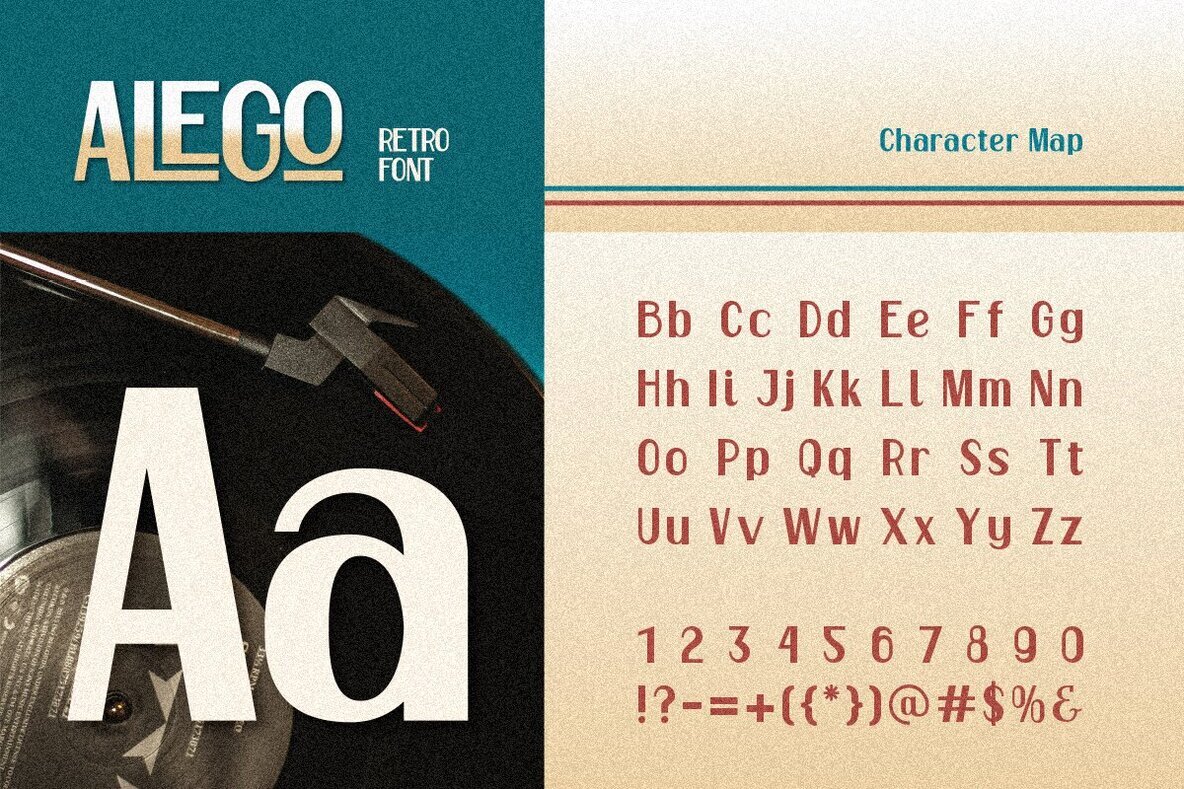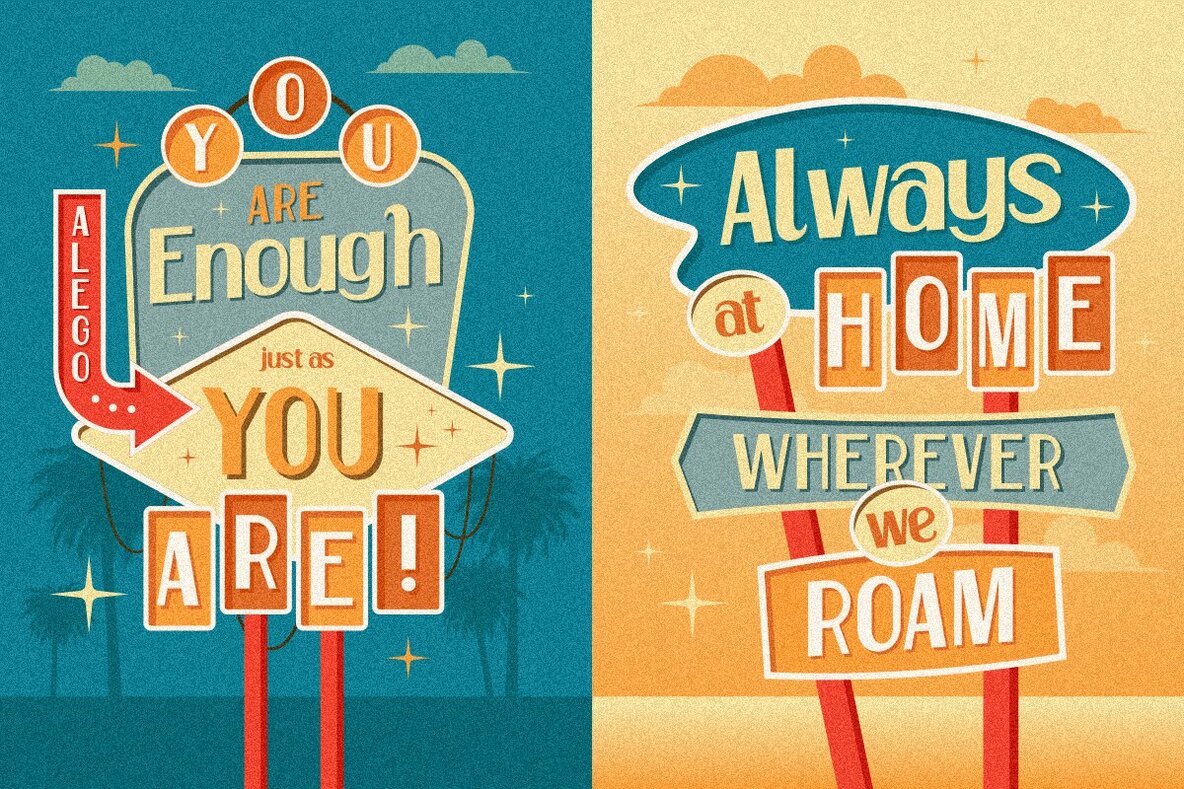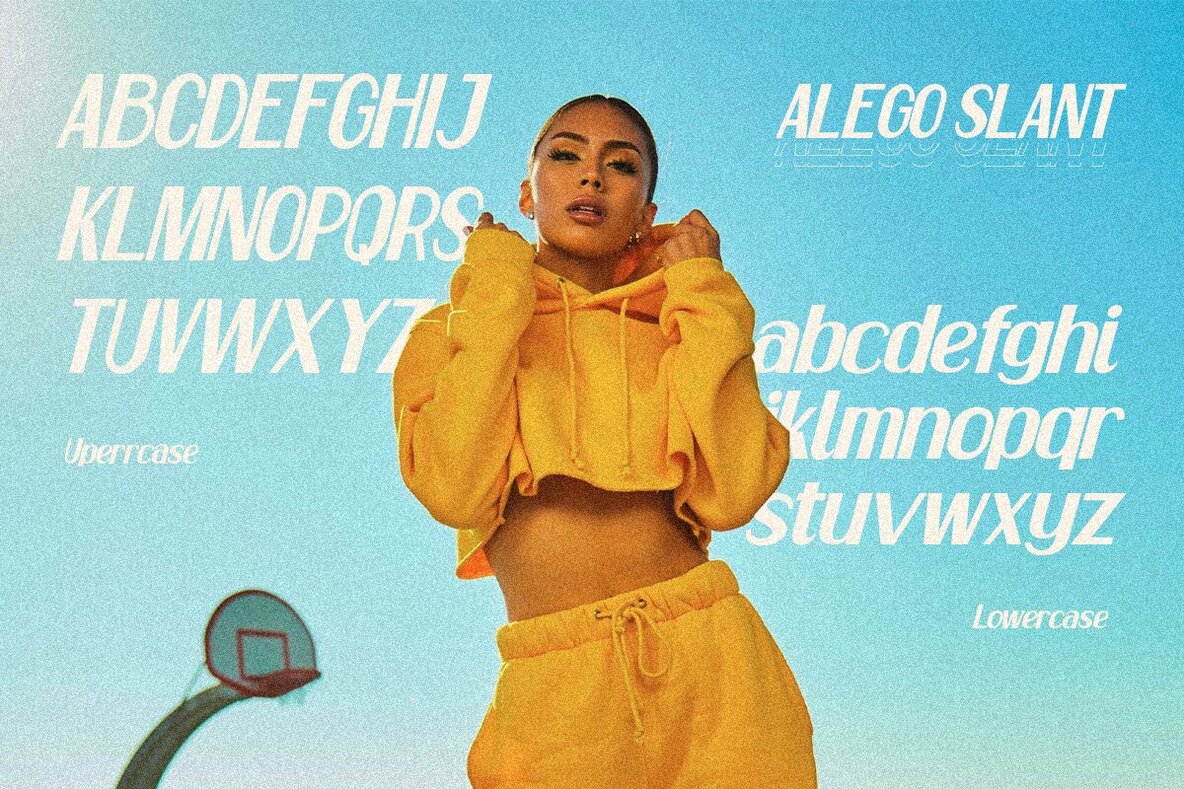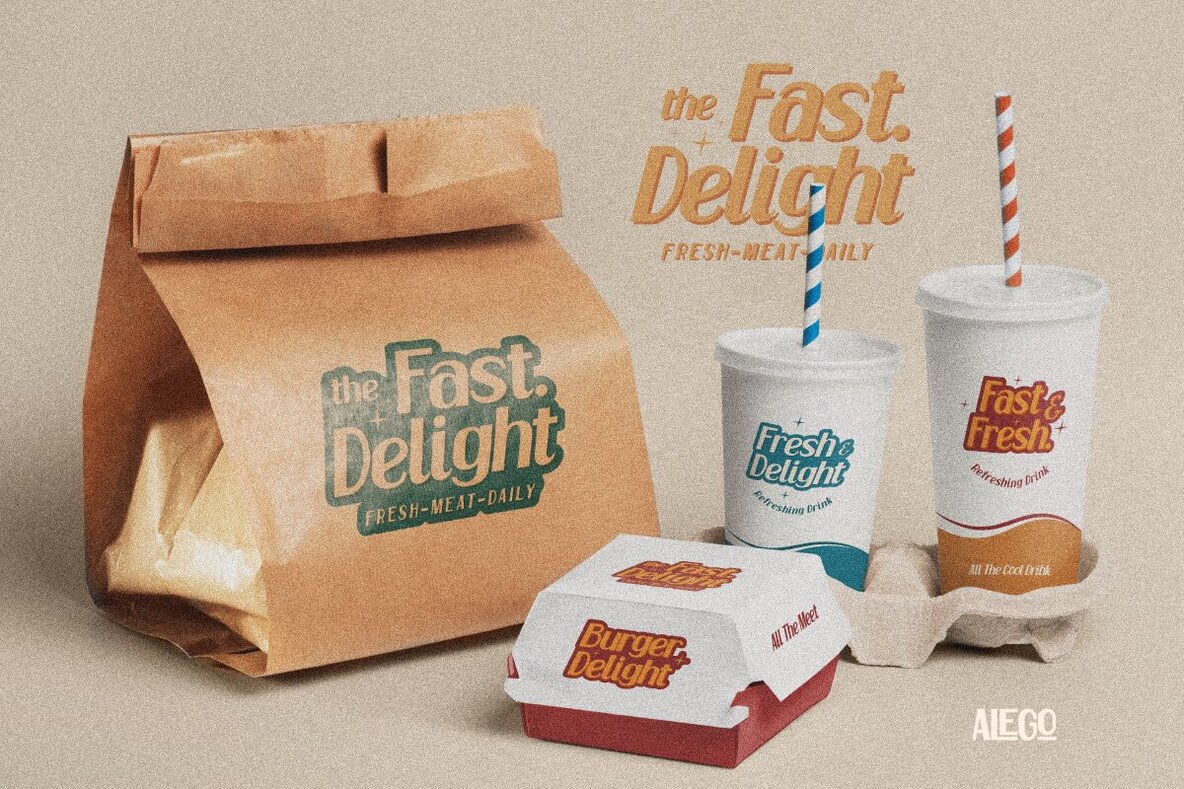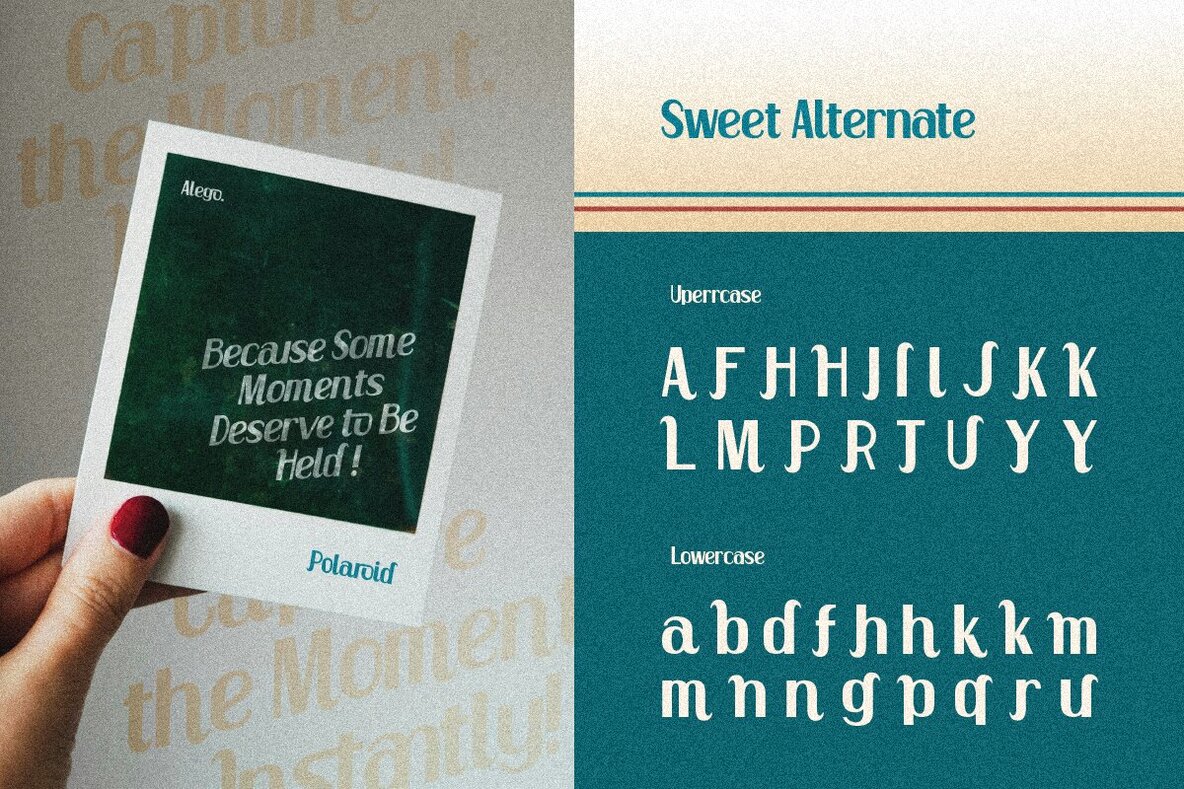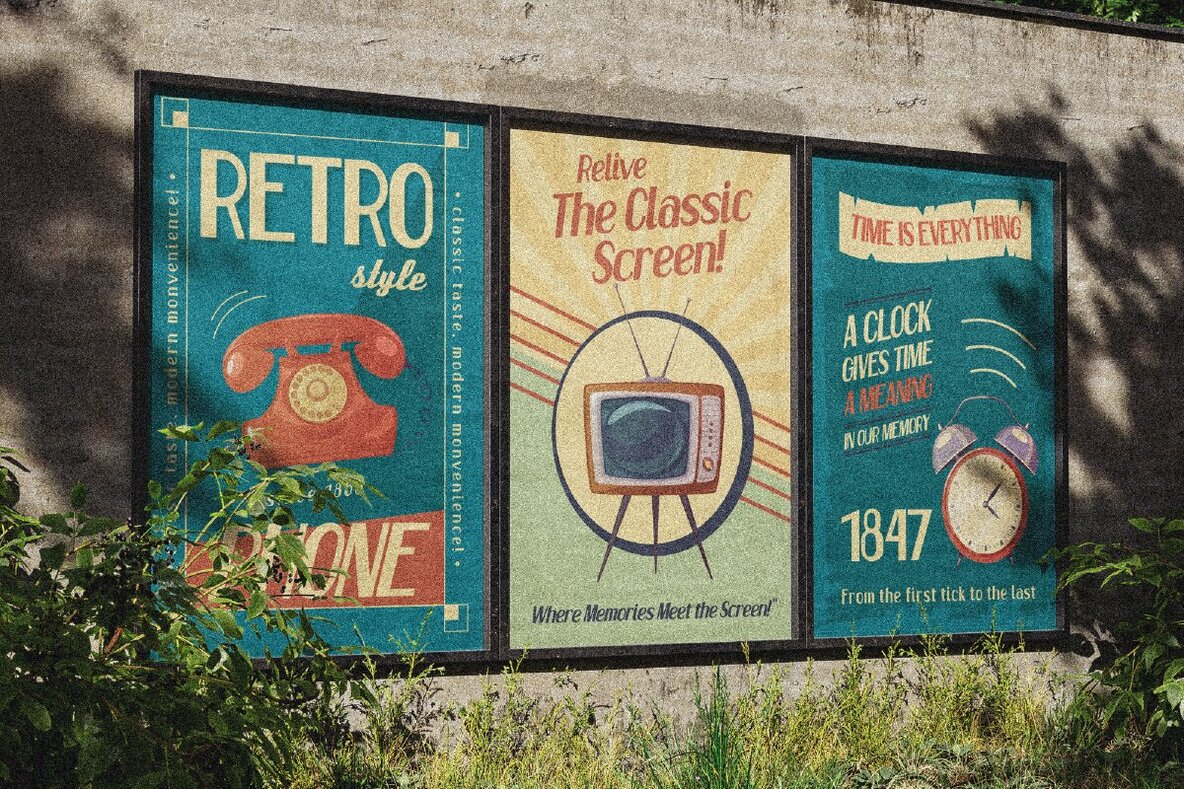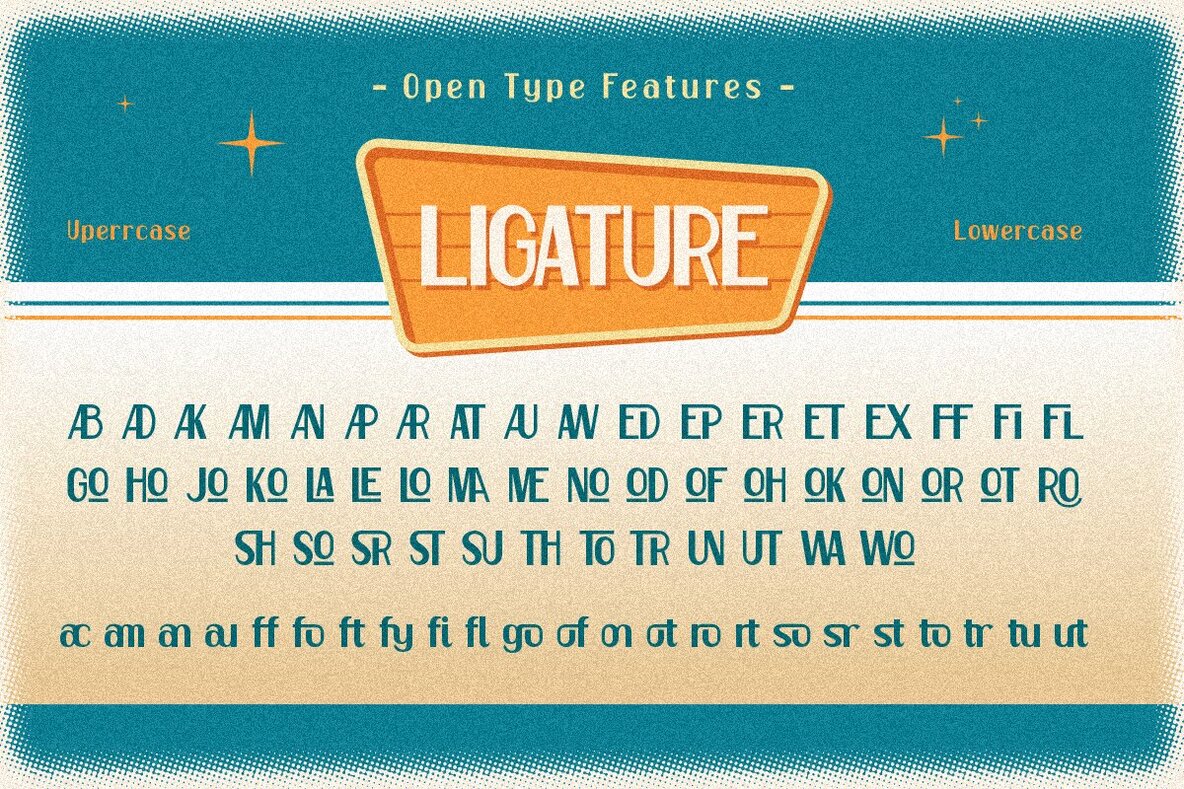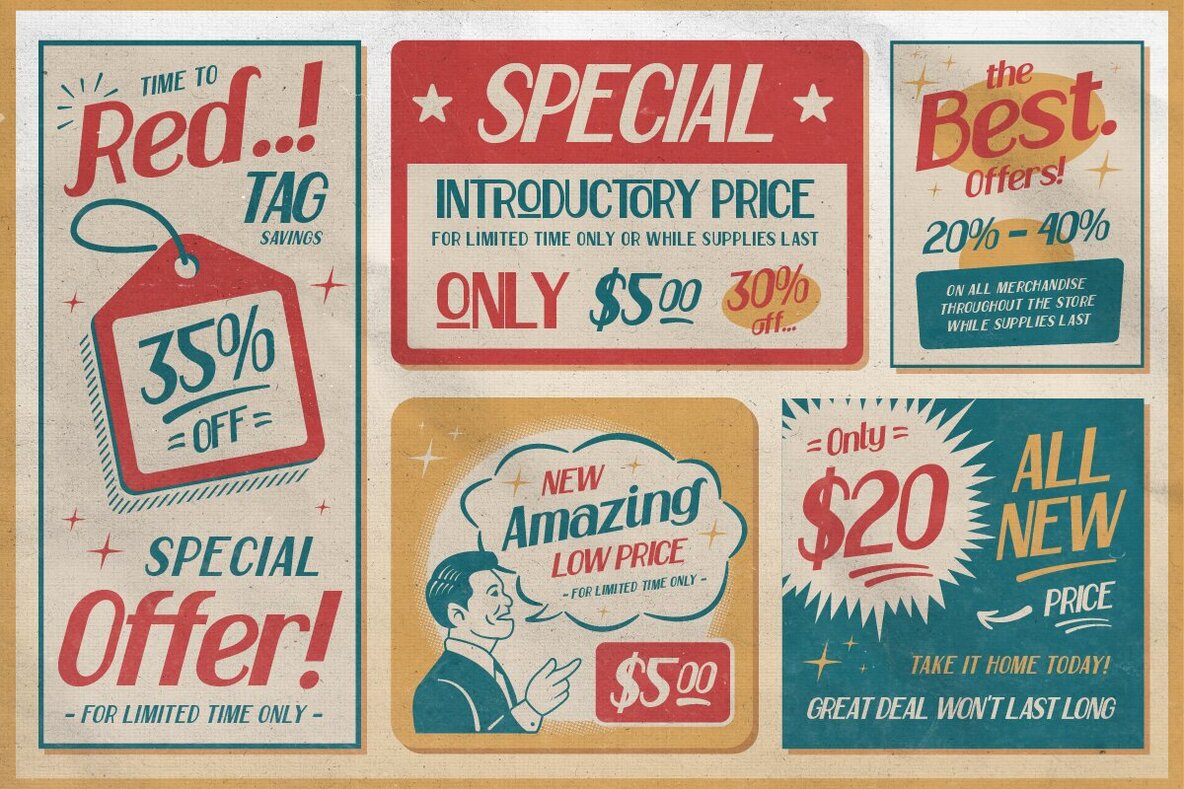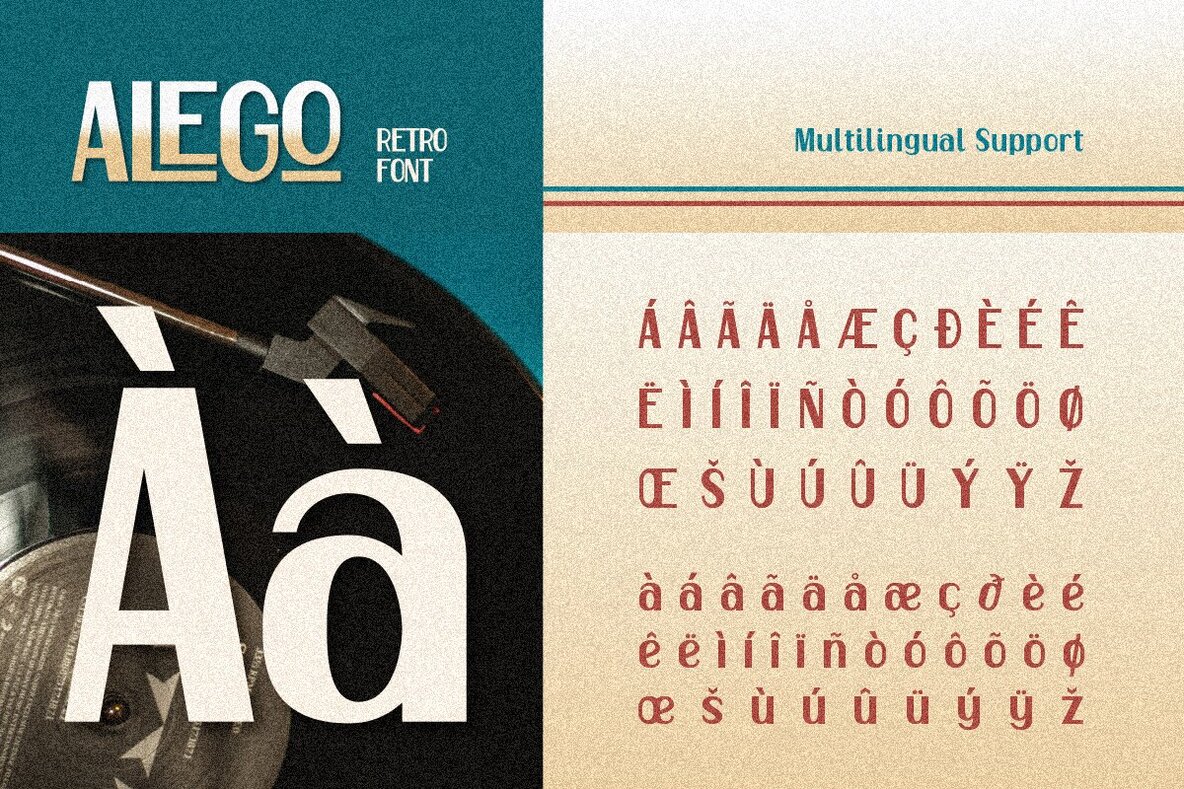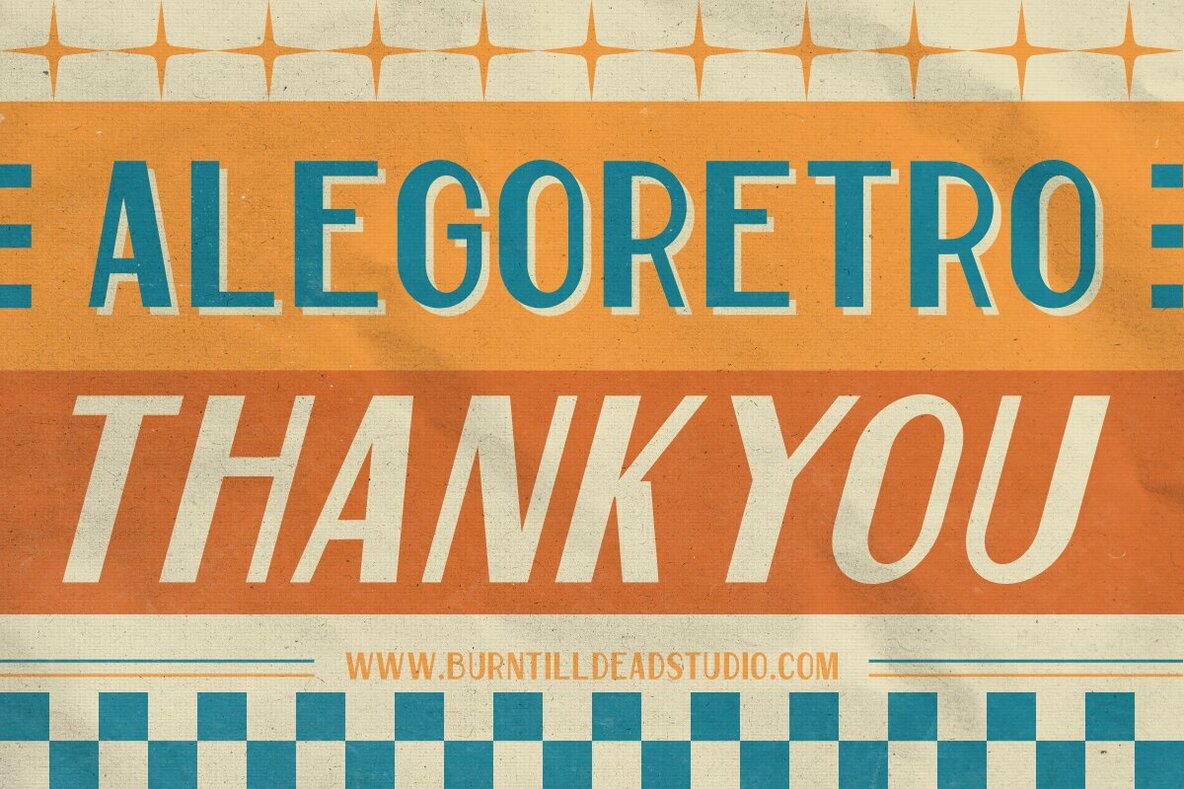
Alego Font
Alego Regular
Alego Slant
Introducing Alego, a retro-inspired display font that evokes the vibrant aesthetic of the 80s. With its bold, simple, and minimalist design, Alego captures nostalgic elements reminiscent of diner signs, psychedelic posters, and arcade games. Ideal for creating striking headlines, logos, posters, and any design requiring a timeless and nostalgic touch, Alego is a versatile choice for any project.
This font includes a complete A-Z character set, numbers, punctuation, alternates, and ligatures. Additionally, it supports multiple languages, making it a practical option for designers working on diverse projects. Add a sense of retro flair to your designs with Alego.